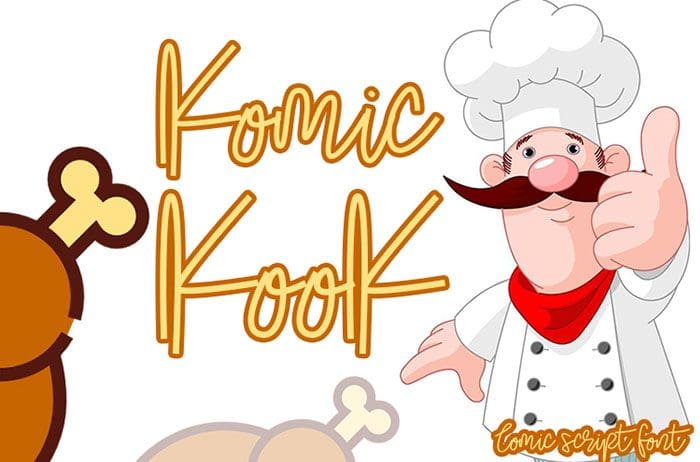
Komic Kook Calligraphy Font
Komic Kook calligraphy font carefully created with a touch of elegance. This font combination of timeless elegance and authentic calligraphy. Designed this font by Inermedia Studio. You can also search more freeĀ Calligraphy Fonts.